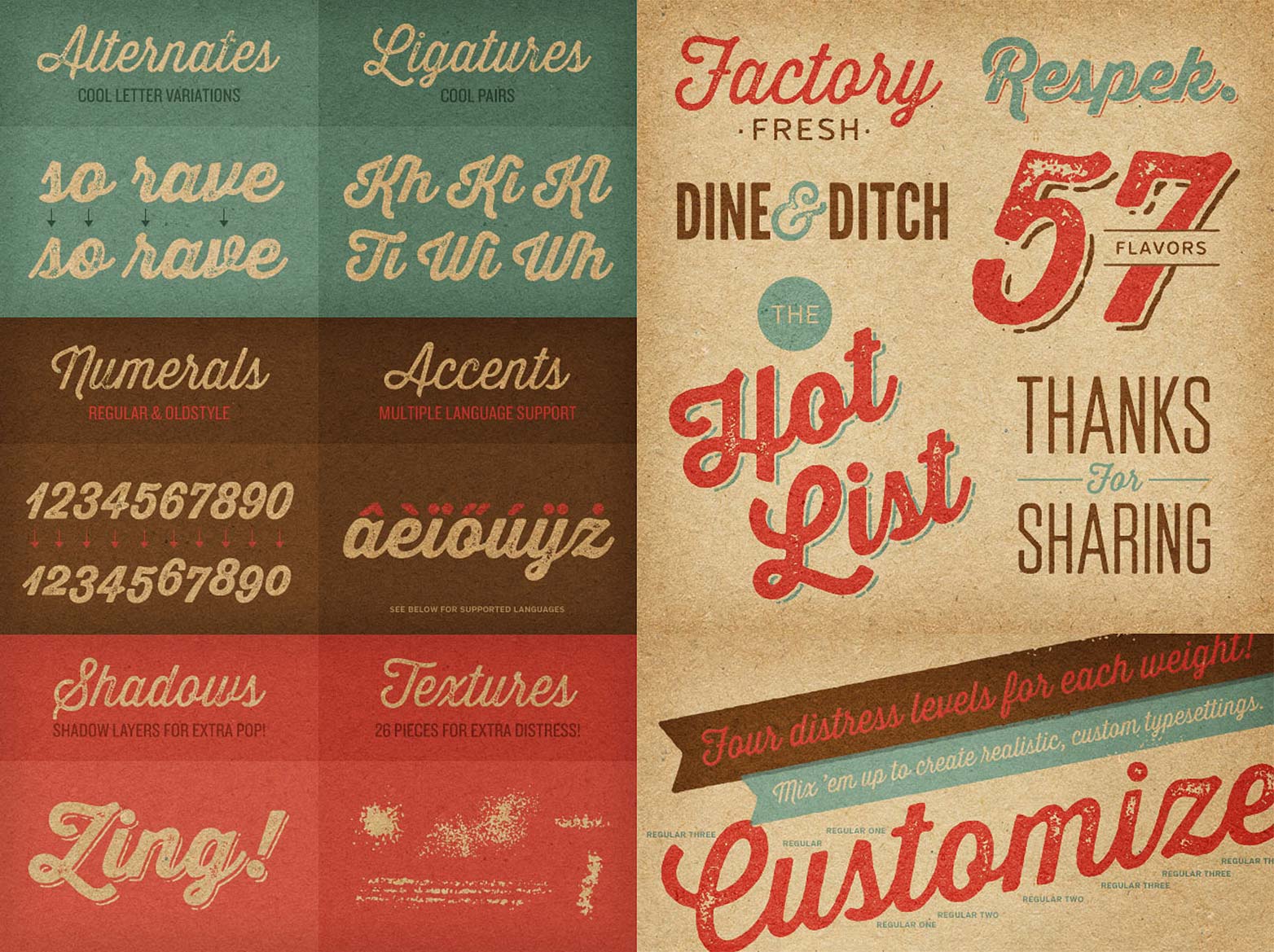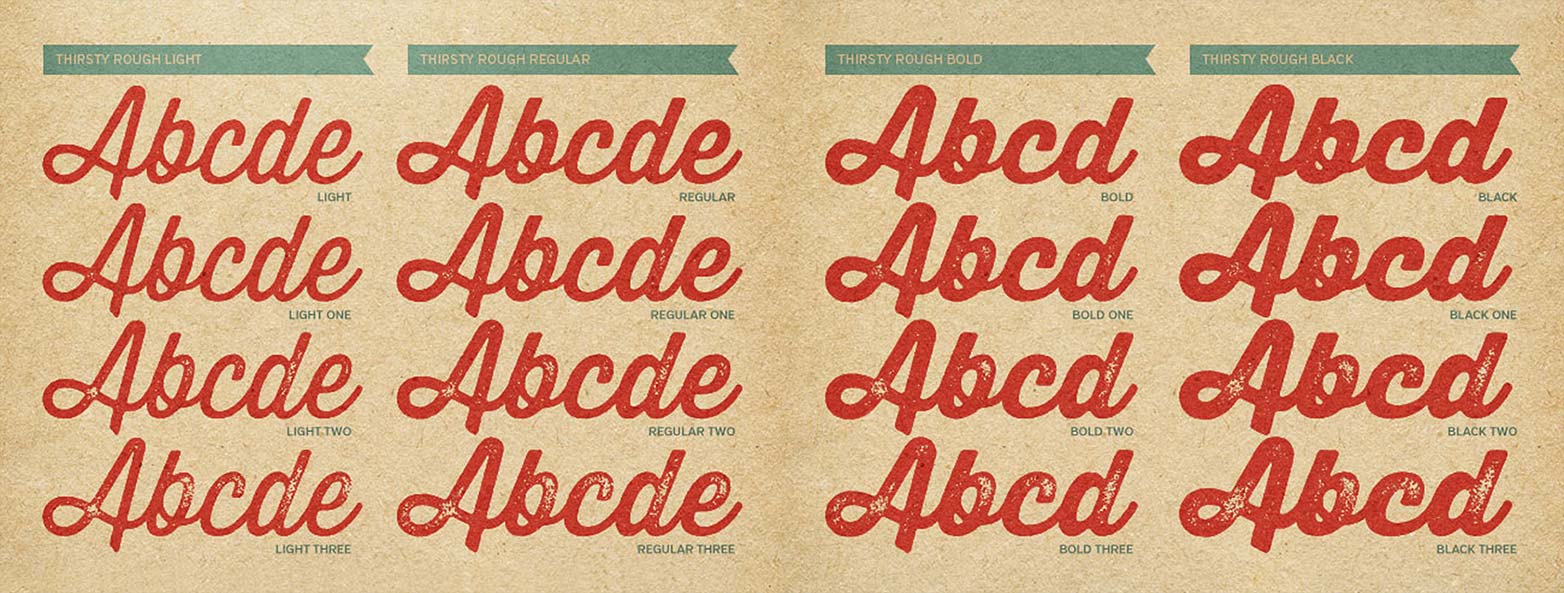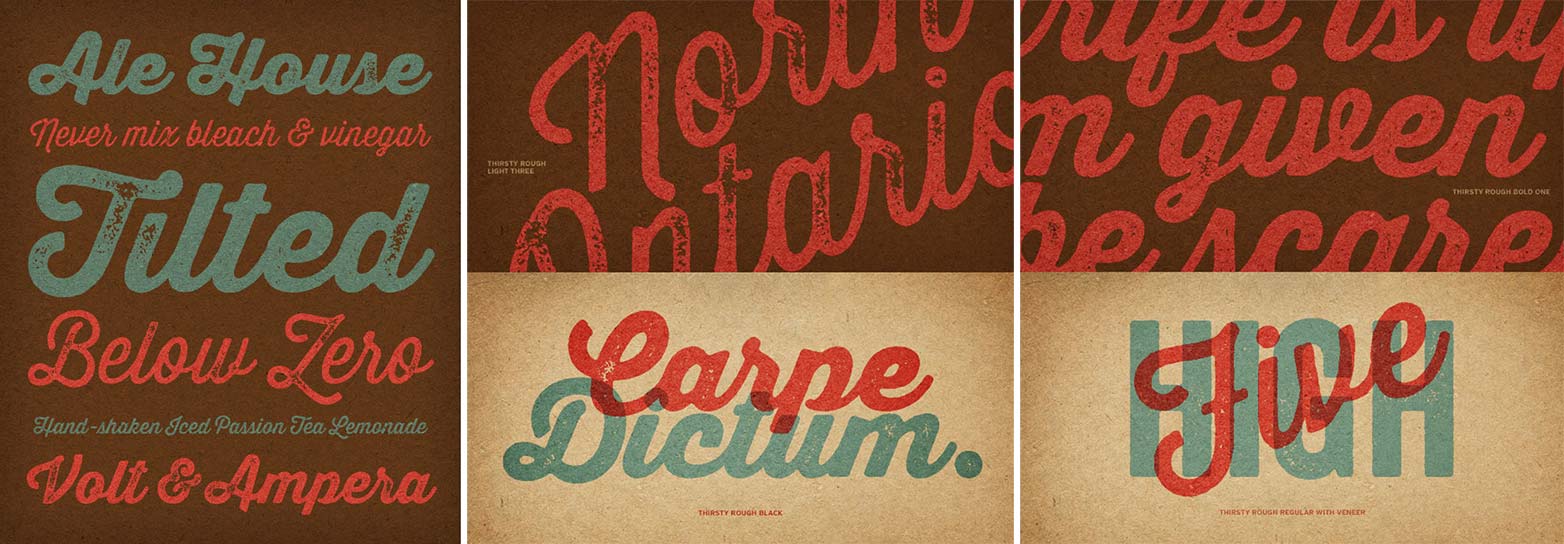
Deal of the week: Charming vintage font family Thirsty Rough
A good cursive typeface is hard to come by; most have a tendency to look like either a hand-written note from the Marquis de Sade, or a grocery list written in haste by a particularly harassed doctor.
Based on the popular Thirsty Script by Yellow Design Studio, Thirsty Rough is softer, rounder edged and consequently a lot friendlier than its parent.
The typeface comes with four weights (light, regular, bold and black) and each weight has four levels of distress for that nice worn feel. There are letter variations to offer variety, professional ligatures, support for dozens of languages, and even a shadow option. This font really is the complete package.
Ideal for any brand that wants to associate itself with vintage flair, Thirsty Rough would be perfect for a small town diner, a clothing label, an independent coffee shop, or perhaps a record label.
What’s more, the effortless cool and numerous distress options makes Thirsty Rough an absolute must-have typeface for T-shirt designers everywhere.